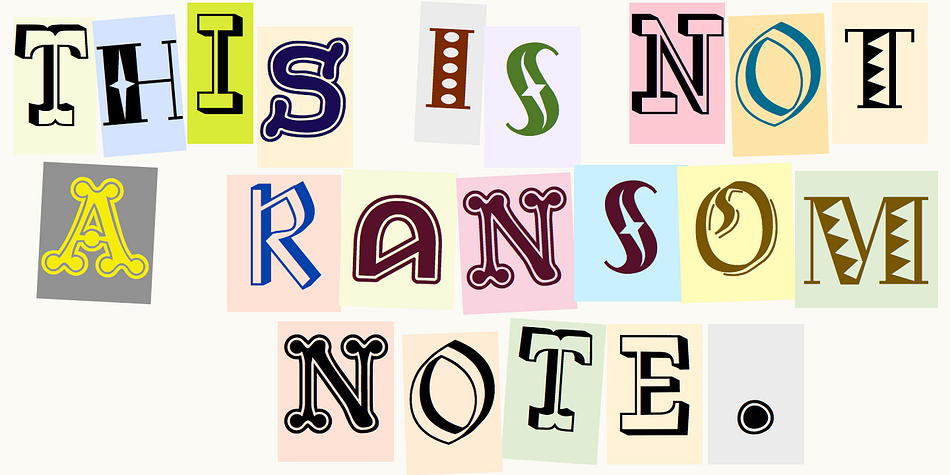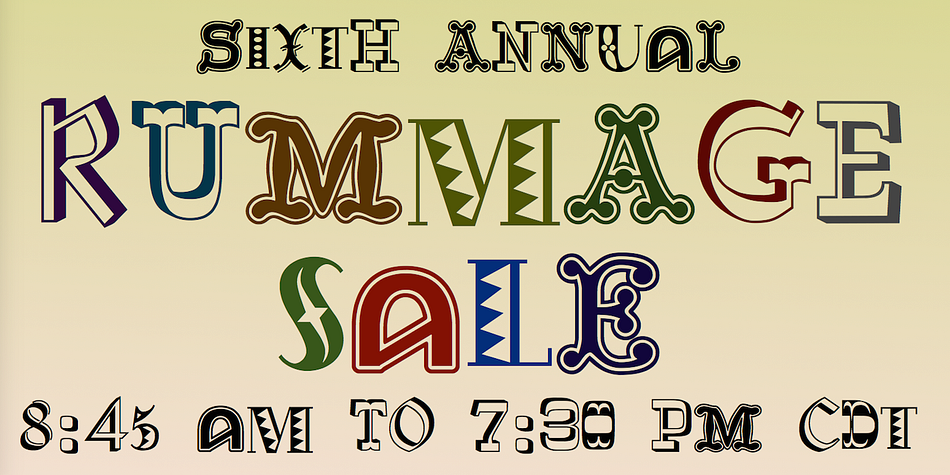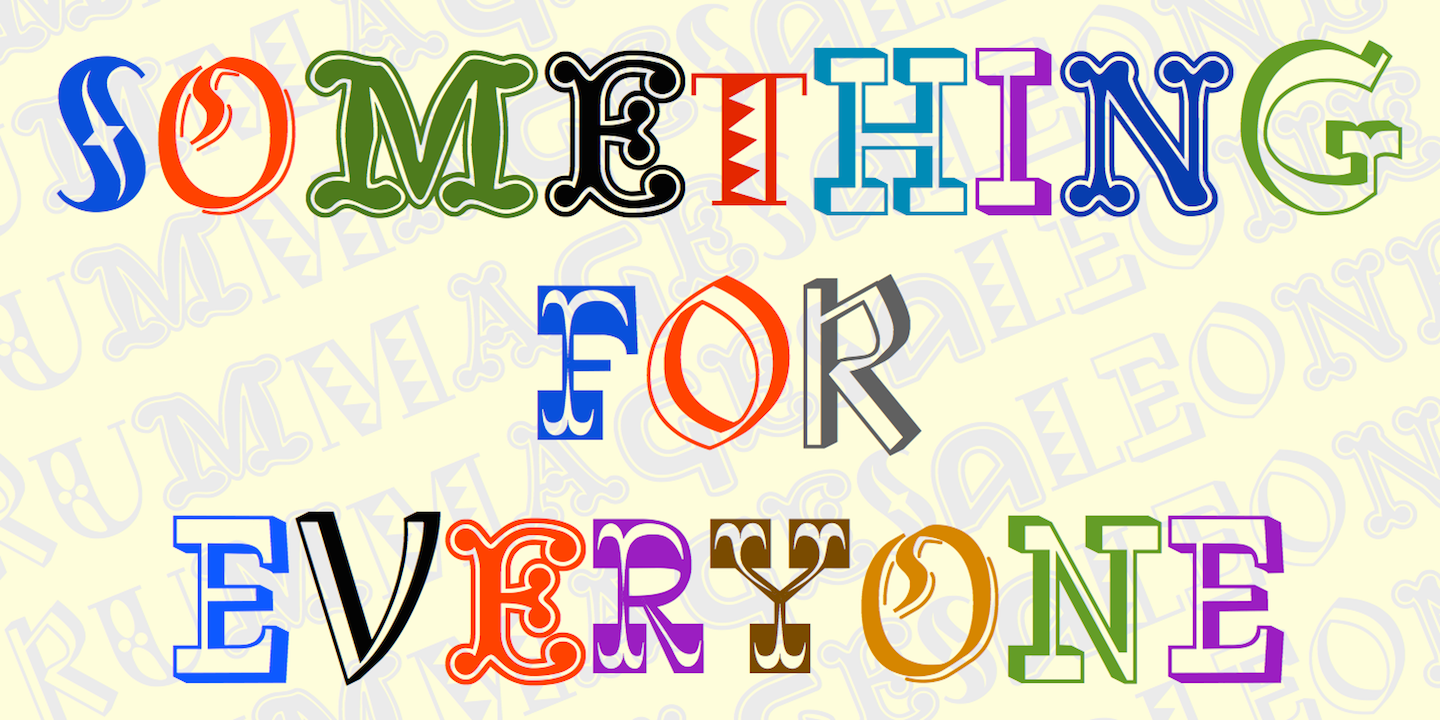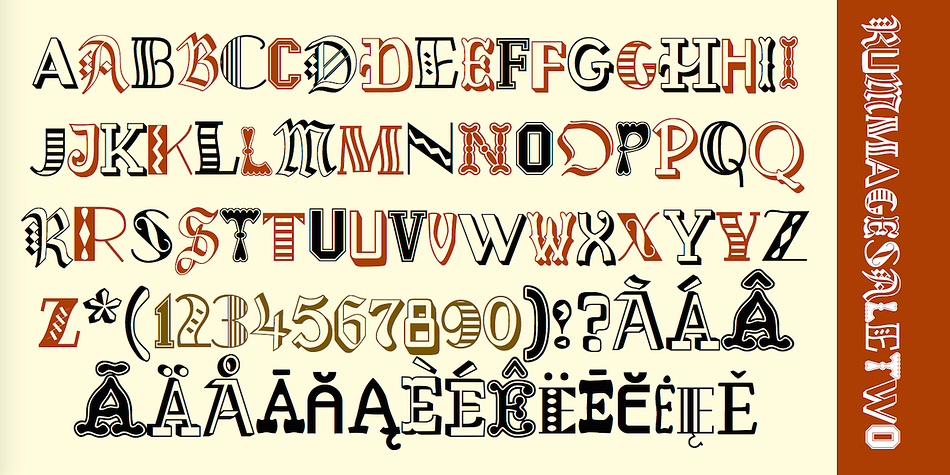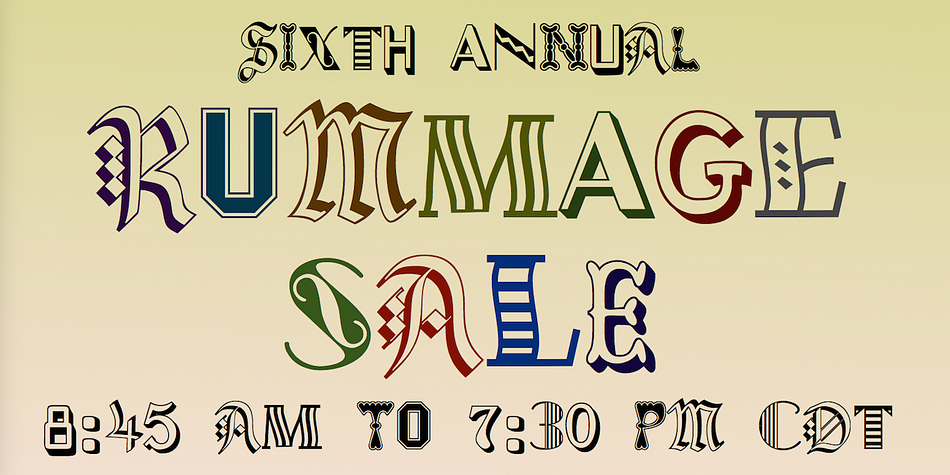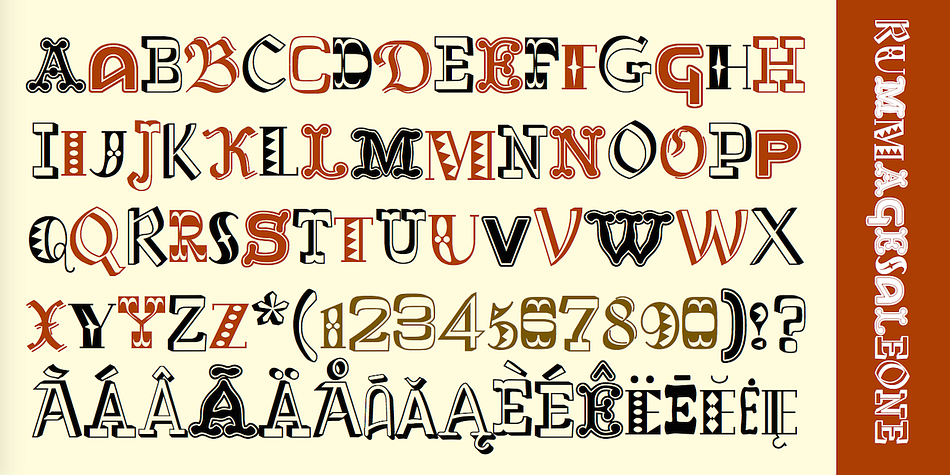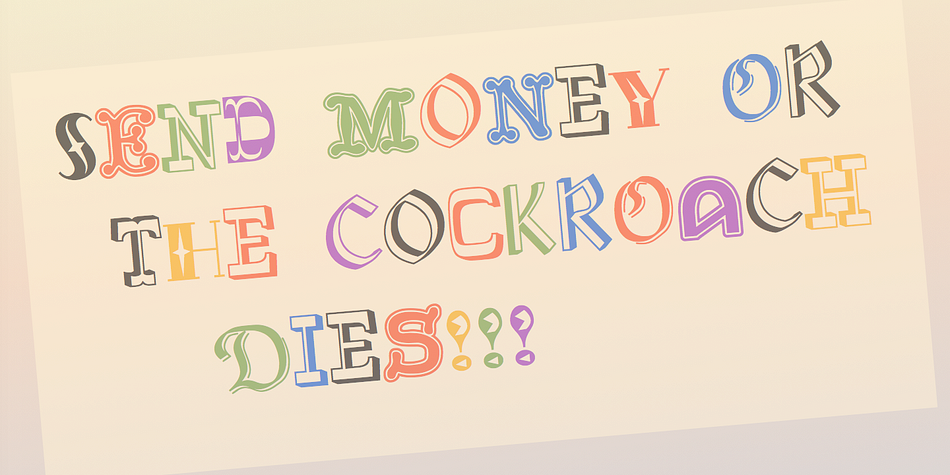
Rummage Sale
Designed by Robert Schenk, Rummage Sale is a novelty font family. This typeface has two styles and was published by Ingrimayne Type.
Several years ago I was asked to do a sign for a rummage sale. To print the words RUMMAGE SALE, I took letters from some of the ornate fonts I was working on at the time. I liked the results, so made them into a font. Fonts from which the letters come include HippityDippity, Tuskcandy, Letunical, OakPark, WyomingStrudel, NeuAltisch, WyomingMacroni, WyomingPastad, and Rundigsburg.
The original typeface had two variants of each letter, one on the upper-case keys and the other on the lower-case keys. The name of the original font, RummageSaleOne, acknowledged that a greater selection of letters was desirable but it was only with the upgrade of 2020 that the greater selection was added. The additional variants were added in two ways: as a separate typeface (RummageSale-Two) and also as OpenType stylistic alternatives.